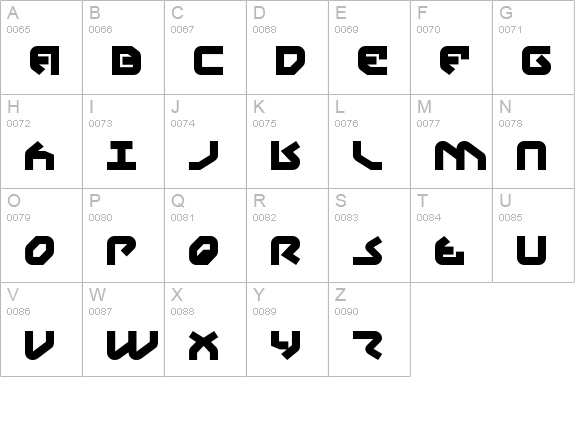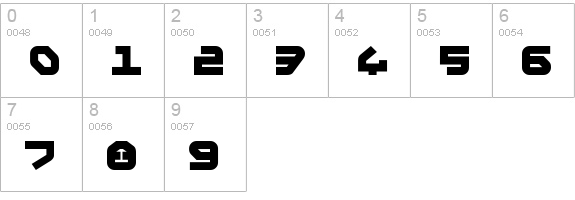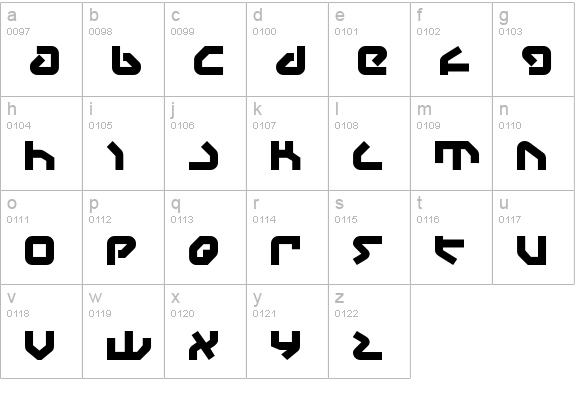
Yahren Bold is a strong, high-contrast variant in the Yahren typeface family \xE2\x80\x94 well suited to headlines, attention-grabbing titles, and strong calls-to-action.
Yahren Bold font is a striking and powerful typeface that commands attention with its bold and impactful letterforms. Designed with a modern and sleek aesthetic, this font exudes confidence and strength, making it perfect for headlines, posters, and branding materials. The versatility of Yahren Bold font allows it to be used across a wide range of design projects, from website headings to product packaging. Its clean lines and sharp edges give it a contemporary edge that can elevate any design. Best of all, Yahren Bold font is available for free download at FontsMarket.com, making it easily accessible to designers and creatives looking to add a touch of boldness to their work. Don't miss the opportunity to enhance your projects with this dynamic and eye-catching font today!